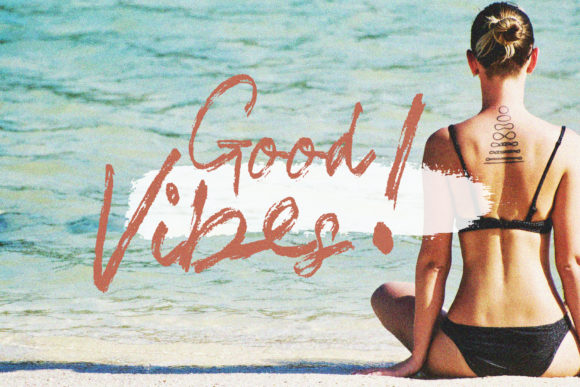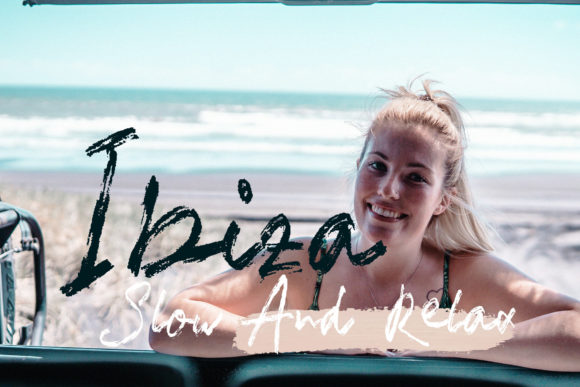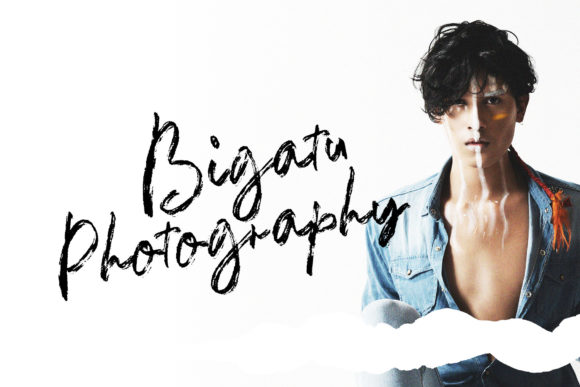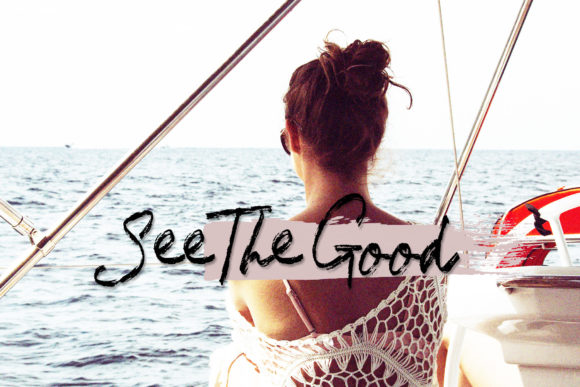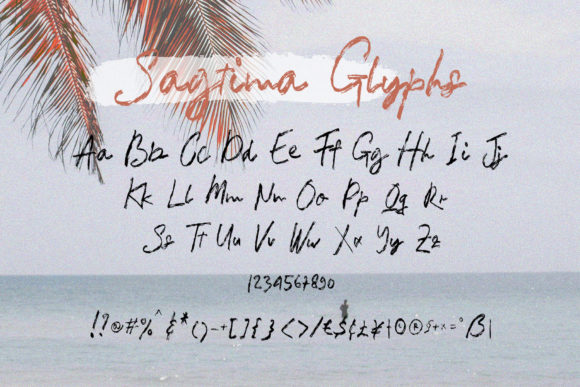
Sagtima Brush Font
About Sagtima Brush Font
Sagtima Brush is a casual and brushed handwritten font. This gentle font will look gorgeous on a variety of design ideas. It will add a joyful and romantic touch to each of your projects!